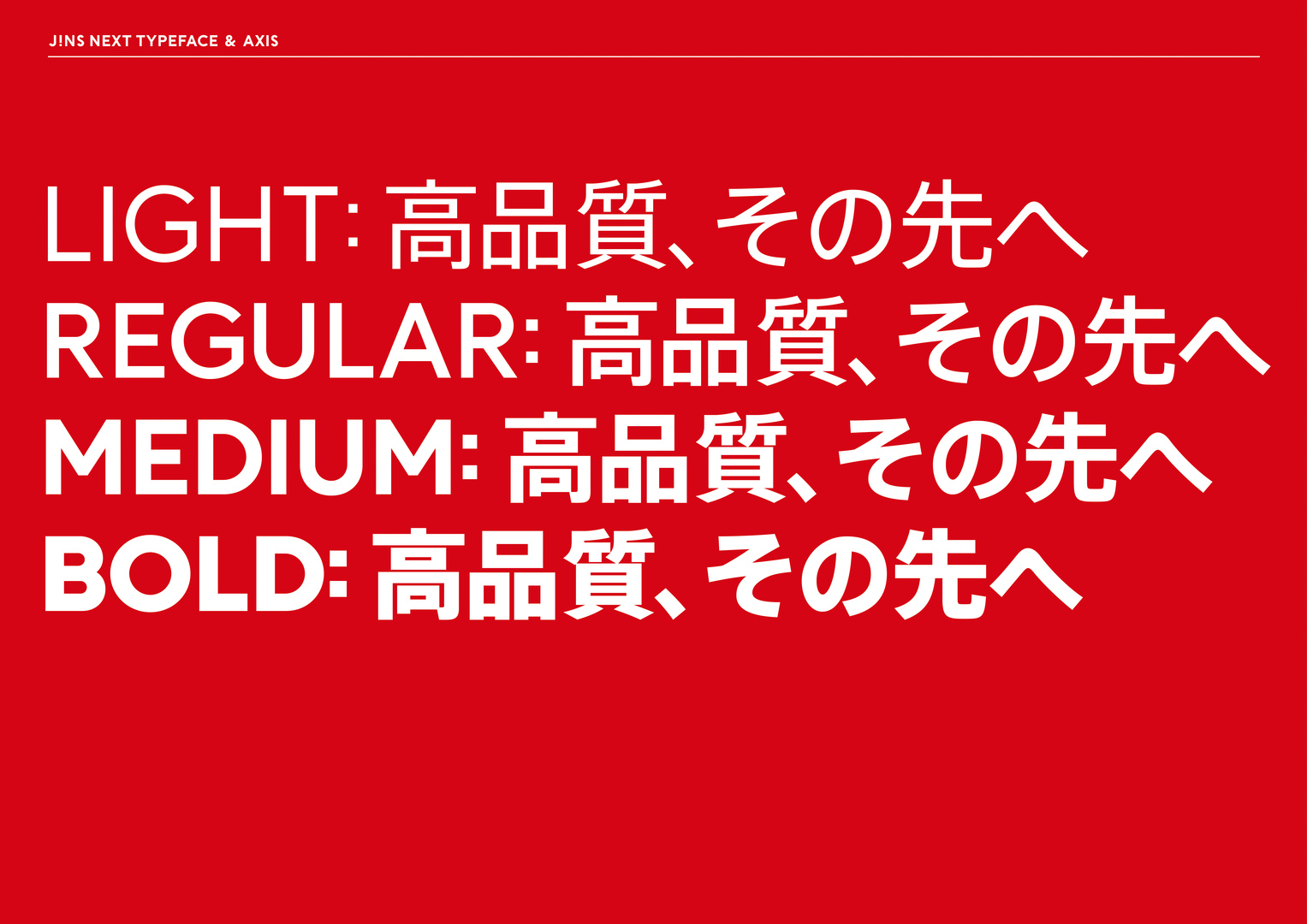
JINS Next Typeface
As part of its brand identity, the Japanese eyewear manufacturer JINS commissioned this internationally applicable typography. On the one hand, the corporate typeface implements contemporary Western design principles by using an expressive geometric font. On the other hand, font styles and characters have been optimised to ensure a smooth combination of Latin and Japanese characters. Thus, the modern typeface achieves a distinct, highly functional quality while communicating an emotional appeal.